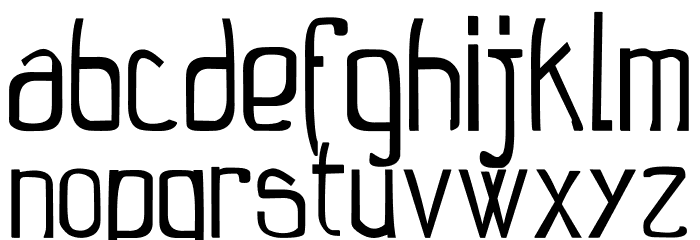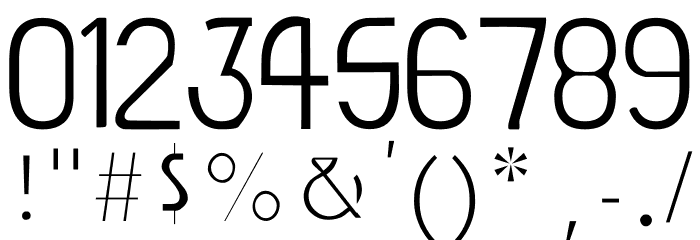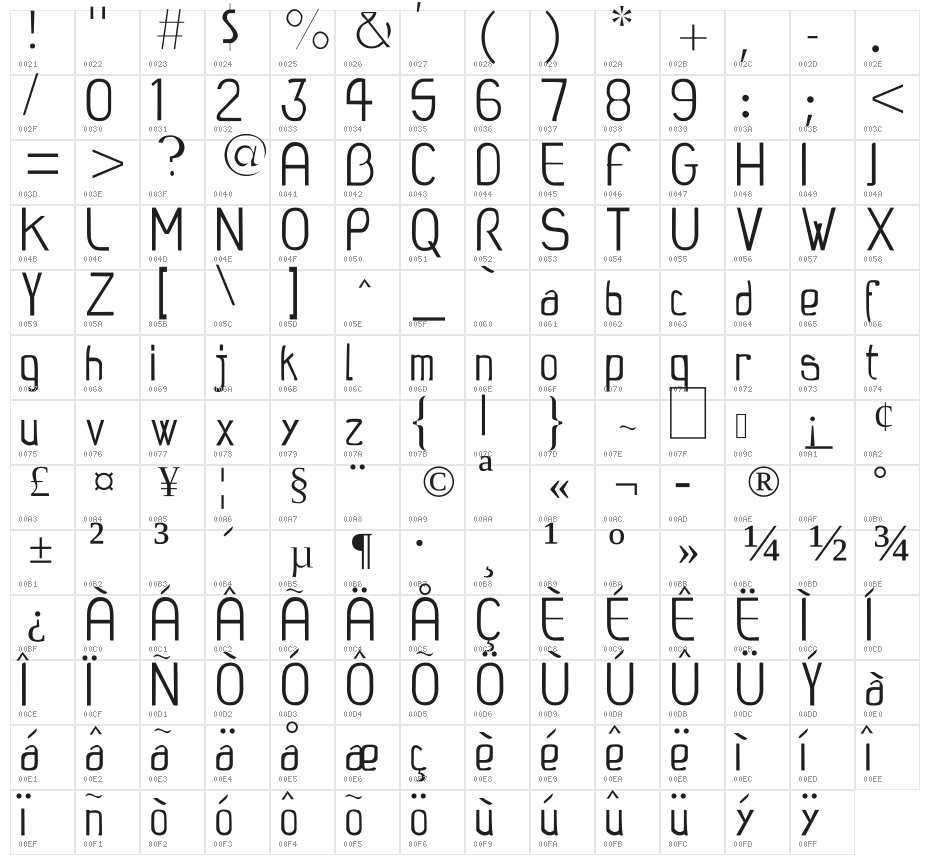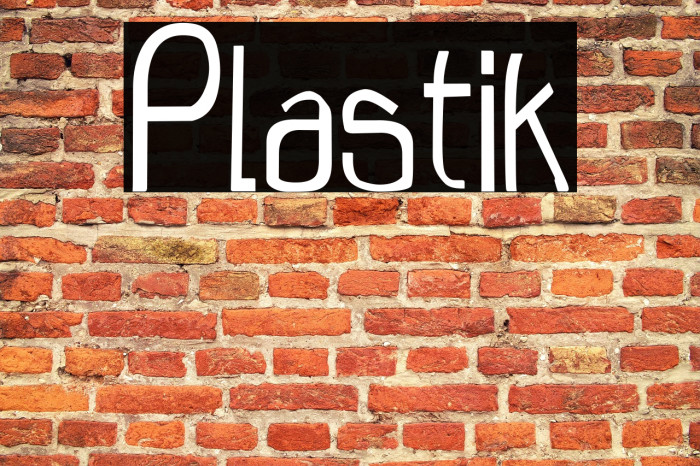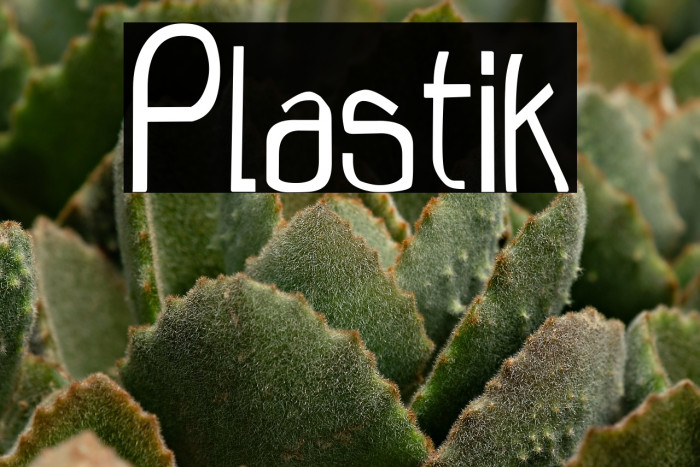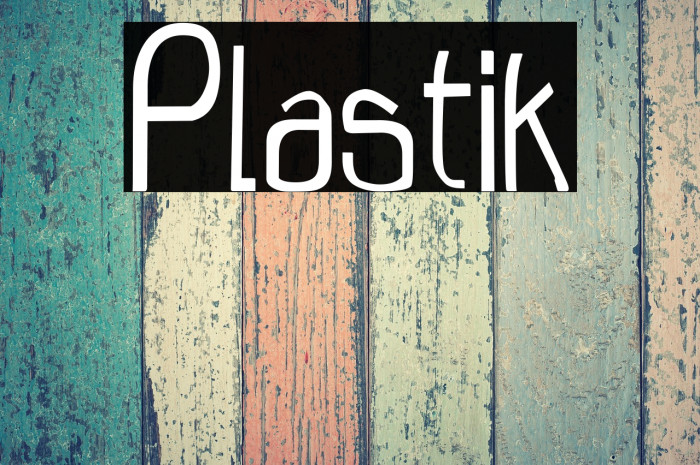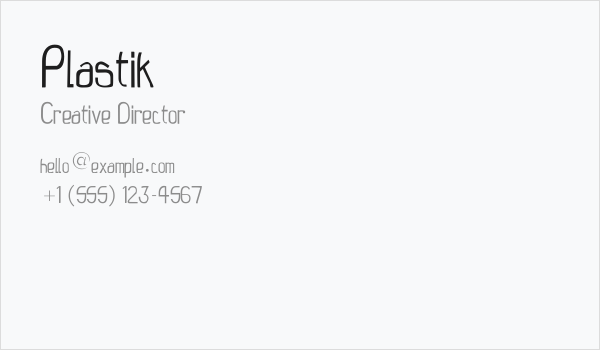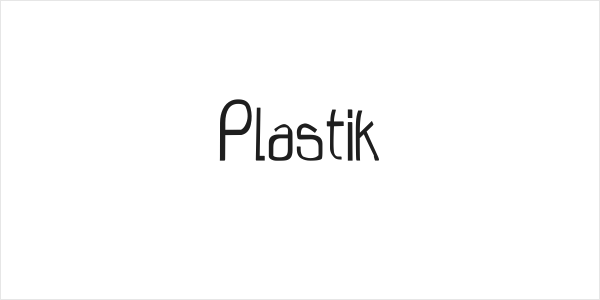
Plastik Font
This font exhibits a modern and sleek design with a distinct geometric influence. The characters are elongated and slightly condensed, giving a streamlined appearance. The uppercase letters are uniform in height, while the lowercase letters maintain a consistent x-height with subtle variations in stroke width. The numerals are clear and legible, matching the overall style of the alphabet. Special characters are well-integrated, maintaining the font's cohesive look. The font's clean lines and minimalistic approach make it versatile for various design applications.
A modern, geometric font with elongated, streamlined characters.
- Proposed Projects: Ideal for branding, advertising, and digital interfaces where a modern and clean aesthetic is desired.
- Use Case: Headlines, Logos, Digital Interfaces